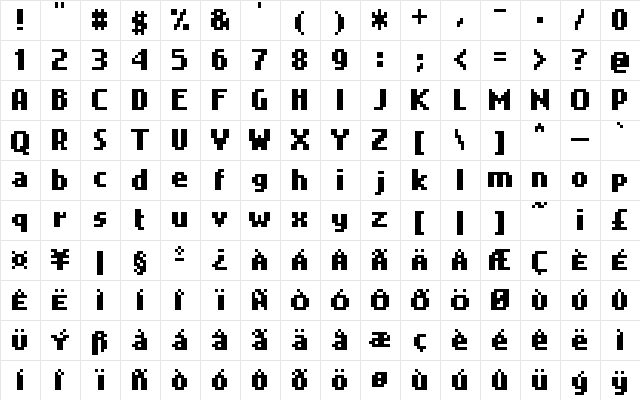
Nokia Cellphone FC Small
| Style | Small |
| Foundry | zeh |
Design Context for Nokia Cellphone FC Typeface
Nokia Cellphone FC offers clean, dependable letterforms without strong stylistic allegiance, making it a practical choice for designers who need flexibility.
Pro Tip: Use Nokia Cellphone FC in both headline and body roles to test its range before committing to a single application.